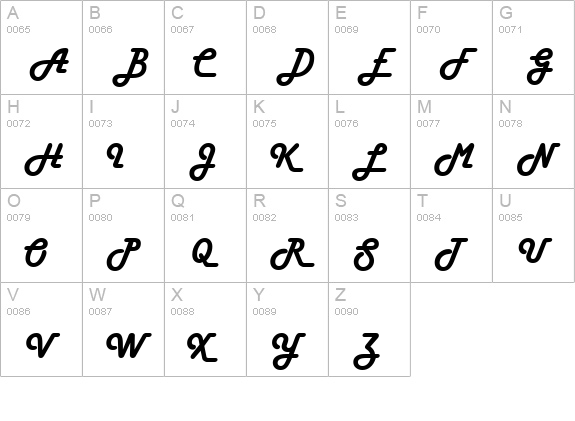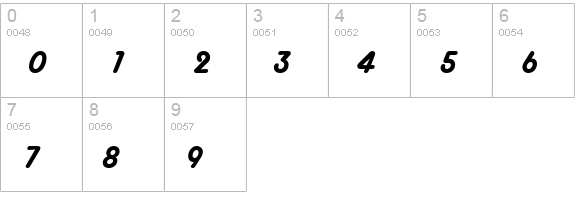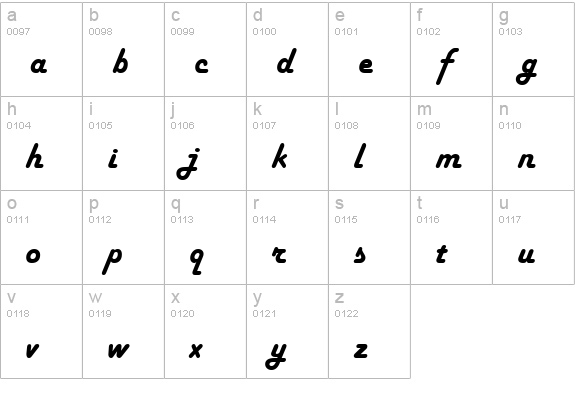
Fifties Heavy Font Details
Fifties Heavy is a heavy, high-impact variant in the Fifties typeface family \xE2\x80\x94 well suited to high-impact headlines, posters, and display advertising.
The Fifties Heavy font exudes a bold and retro vibe, perfect for adding a touch of nostalgia to your designs. With its thick strokes and vintage-inspired charm, this typeface is sure to make a statement. Whether you're working on a poster, logo, or any other creative project, Fifties Heavy is a versatile choice that will stand out. And the best part? Fifties Heavy is free to download at FontsMarket.com, making it easily accessible for all your design needs. Don't miss out on this stylish and eye-catching font that harkens back to the iconic era of the 1950s. Download Fifties Heavy today and let your creativity shine!